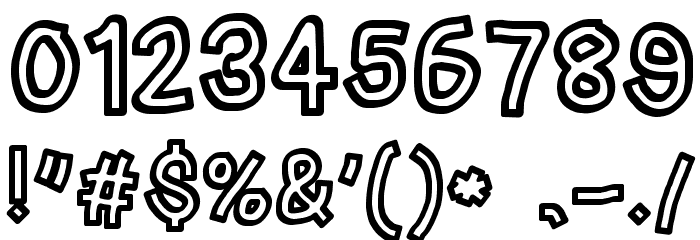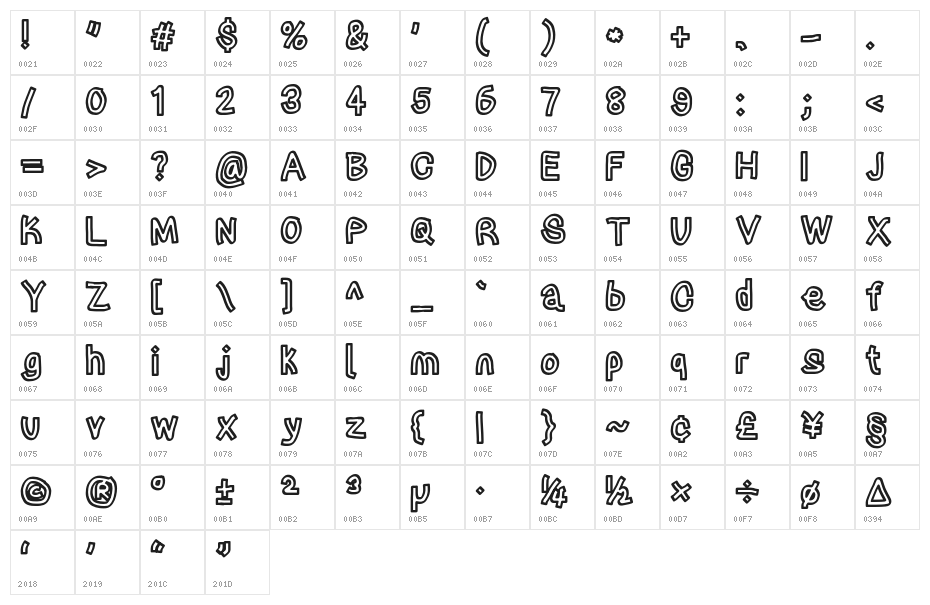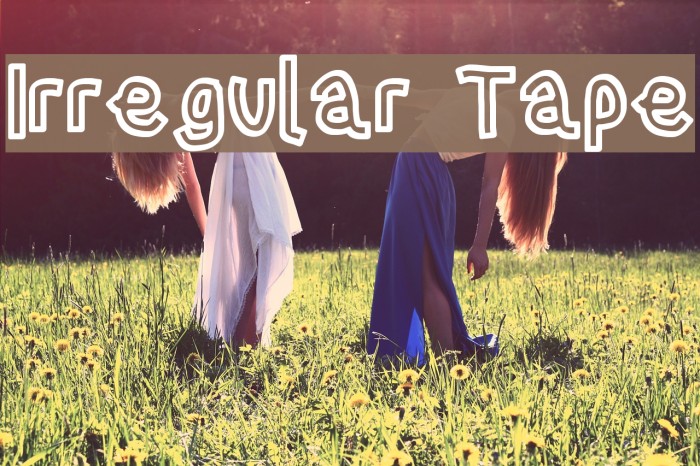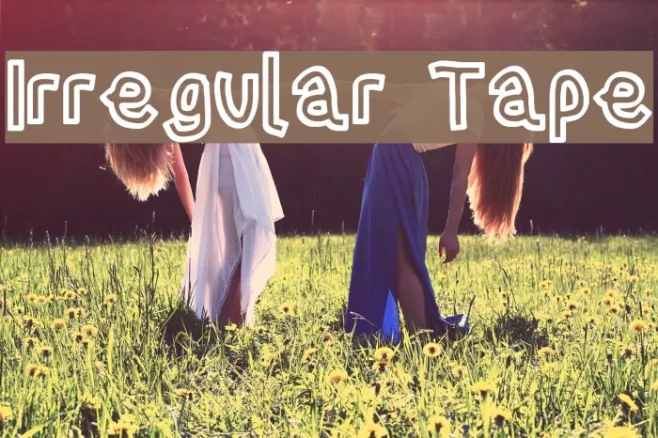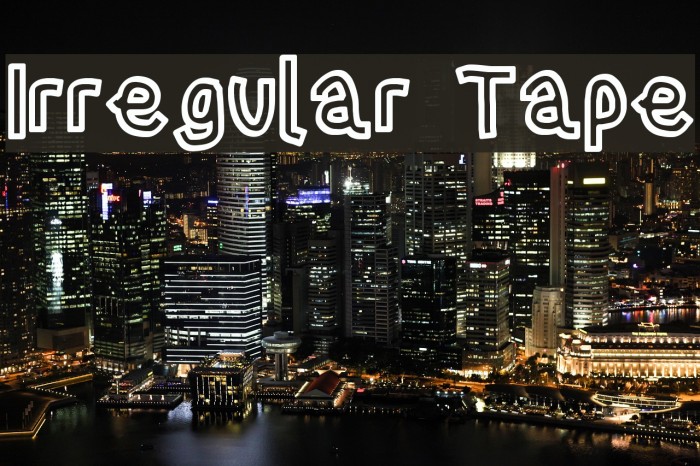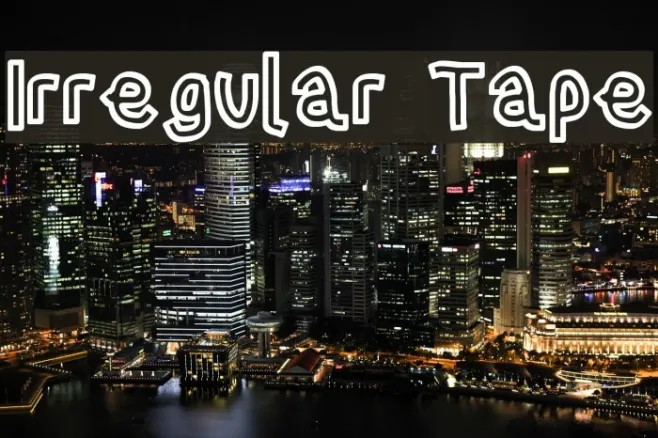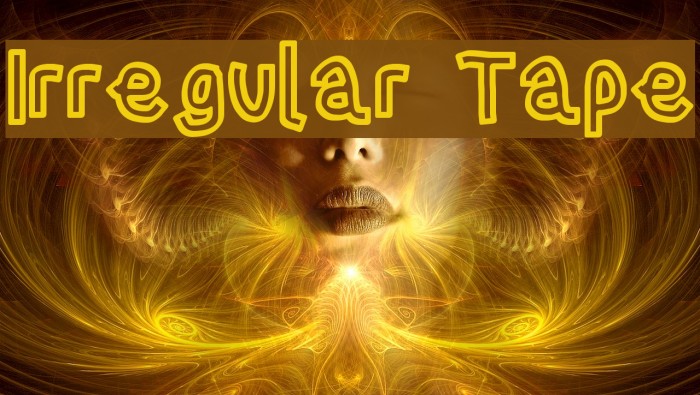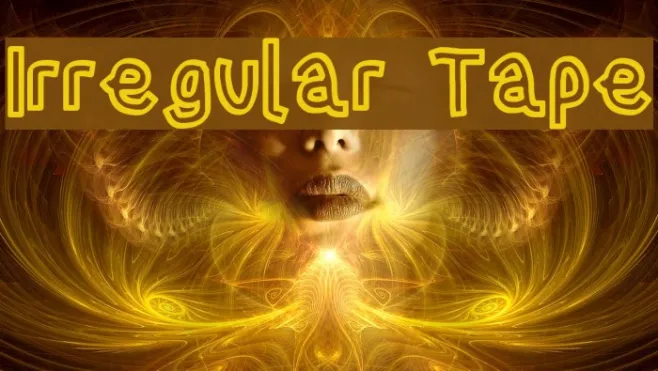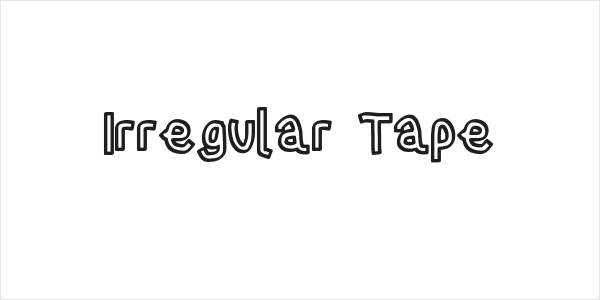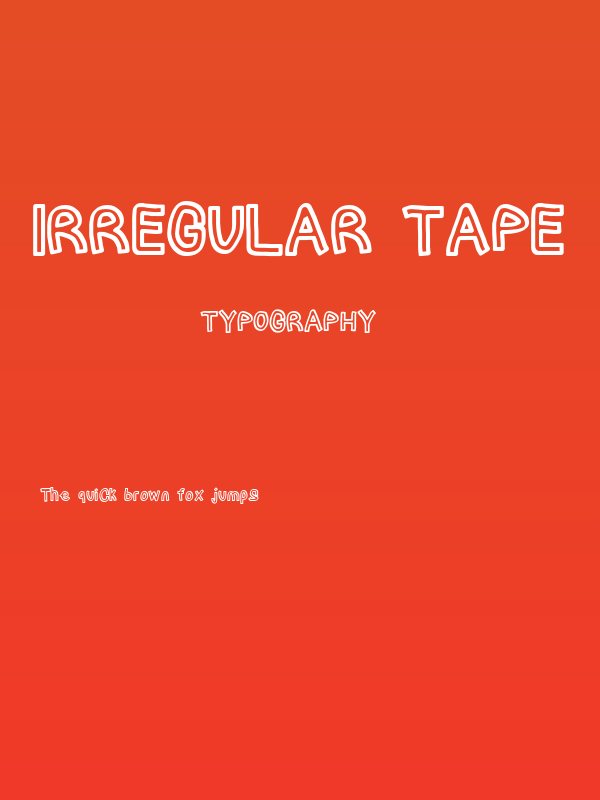
Irregular Tape Font
Irregular Tape Description
This playful and bold font features a unique hand-drawn style with irregular outlines, giving it a lively and dynamic appearance. The characters are outlined with a thick black stroke, creating a striking contrast against the white interior. This design choice enhances readability while maintaining a whimsical aesthetic. The font's irregularities and playful curves make it stand out, adding a touch of creativity and fun to any project. Its distinct style is perfect for capturing attention and conveying a sense of informality and creativity.
| Overall Style | Playful, Creative, Whimsical |